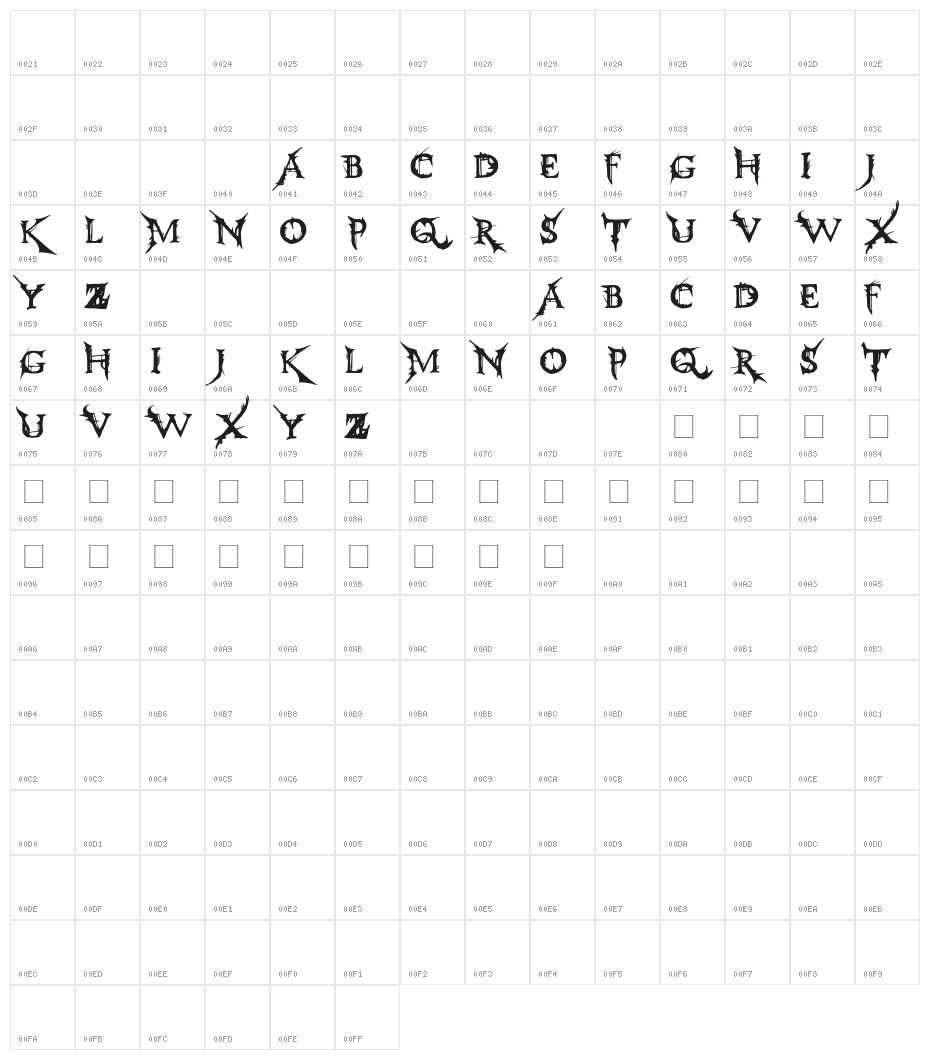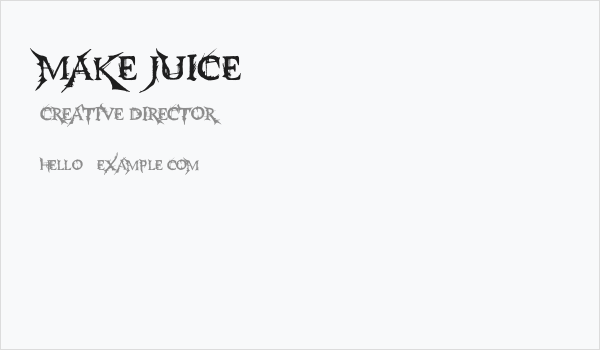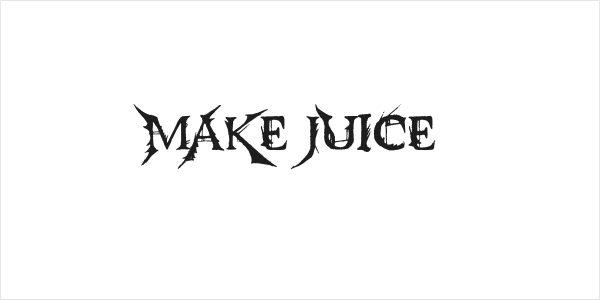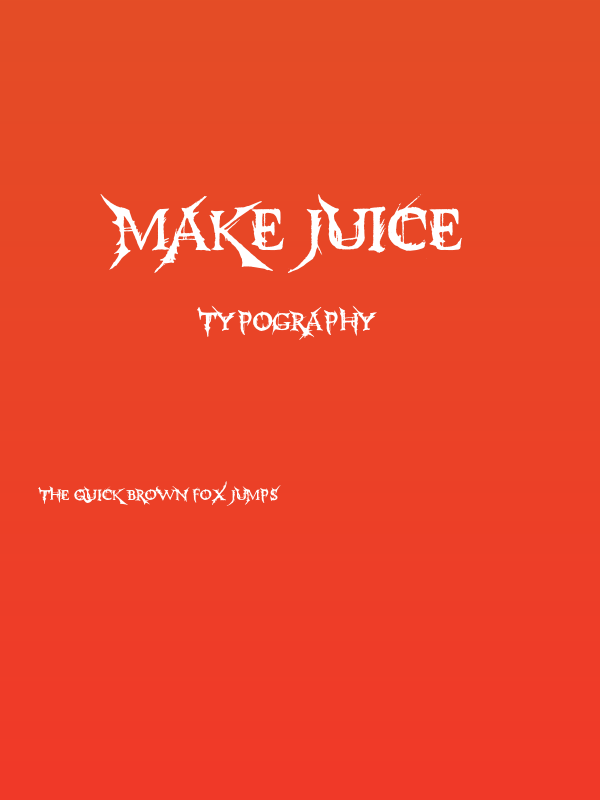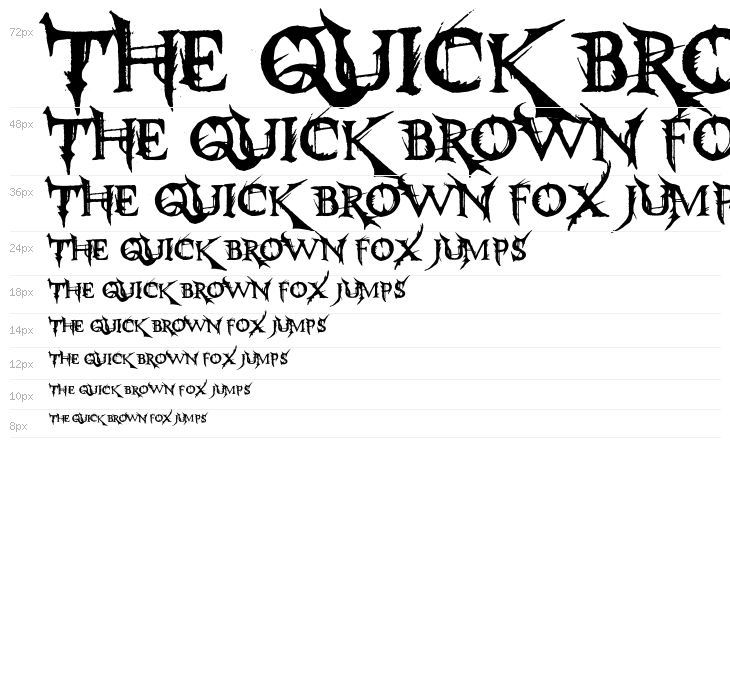
Make Juice Font
Make Juice Description
This font features a highly decorative and edgy style, characterized by sharp, jagged edges and a distressed appearance. The letters are bold and impactful, with an aggressive aesthetic that suggests a sense of rebellion or intensity. Each character is uniquely crafted with irregular strokes, giving it a hand-drawn feel that is both artistic and chaotic. The uppercase and lowercase letters maintain a consistent design theme, while the numbers and special characters integrate seamlessly with the overall style. This font is ideal for projects that require a dramatic and eye-catching typeface.
| Proposed Projects | Album covers, posters, video game titles, branding for extreme sports, or any project needing a bold, dramatic impact. |